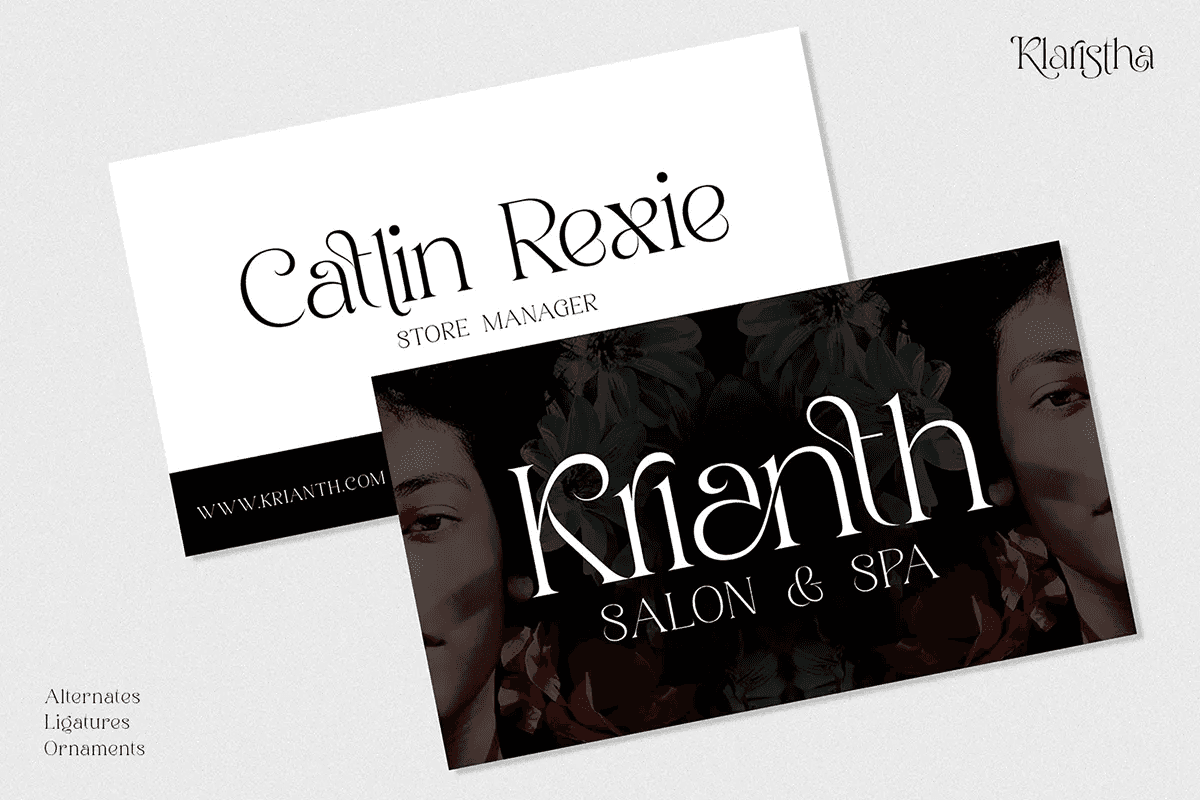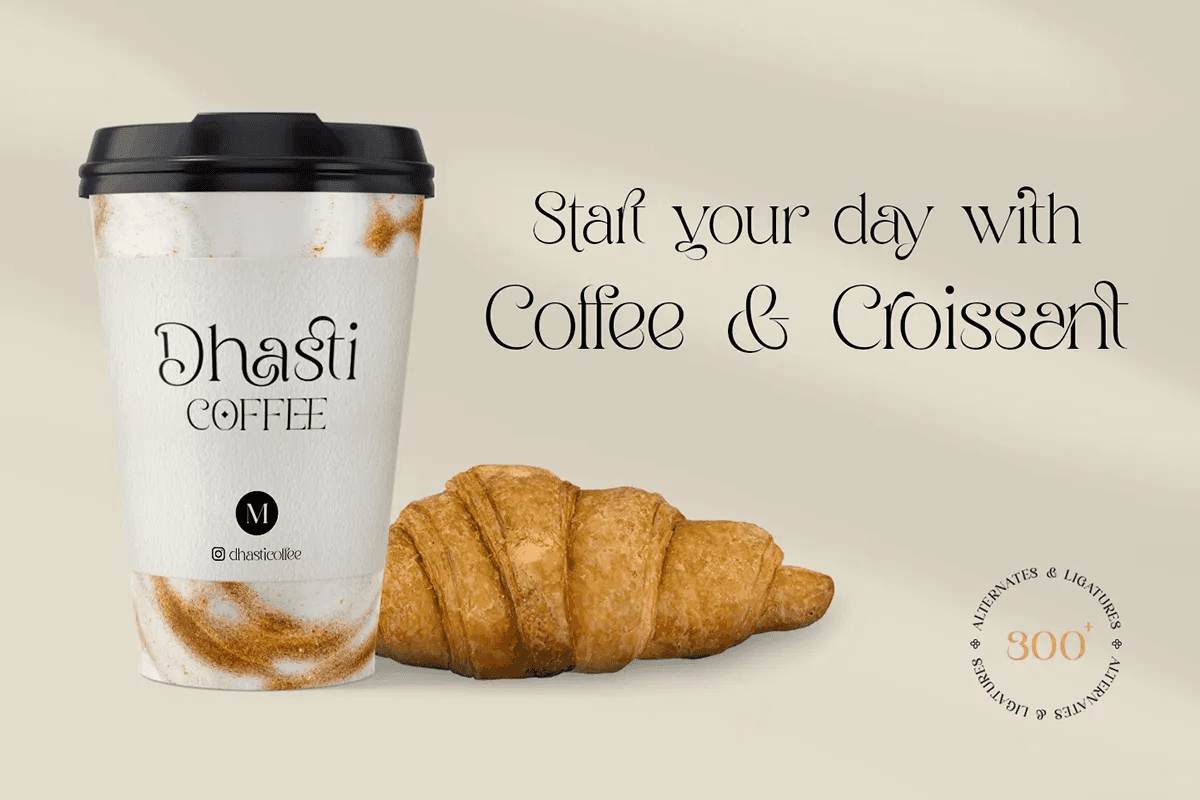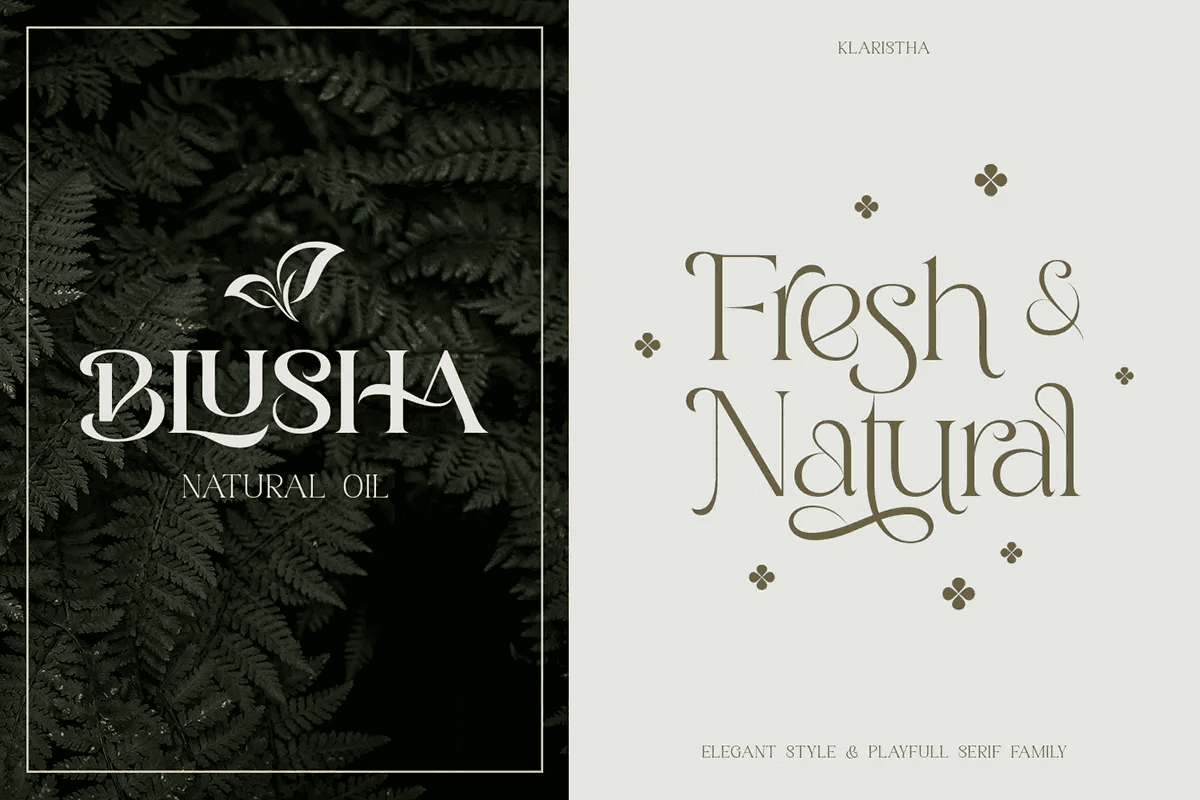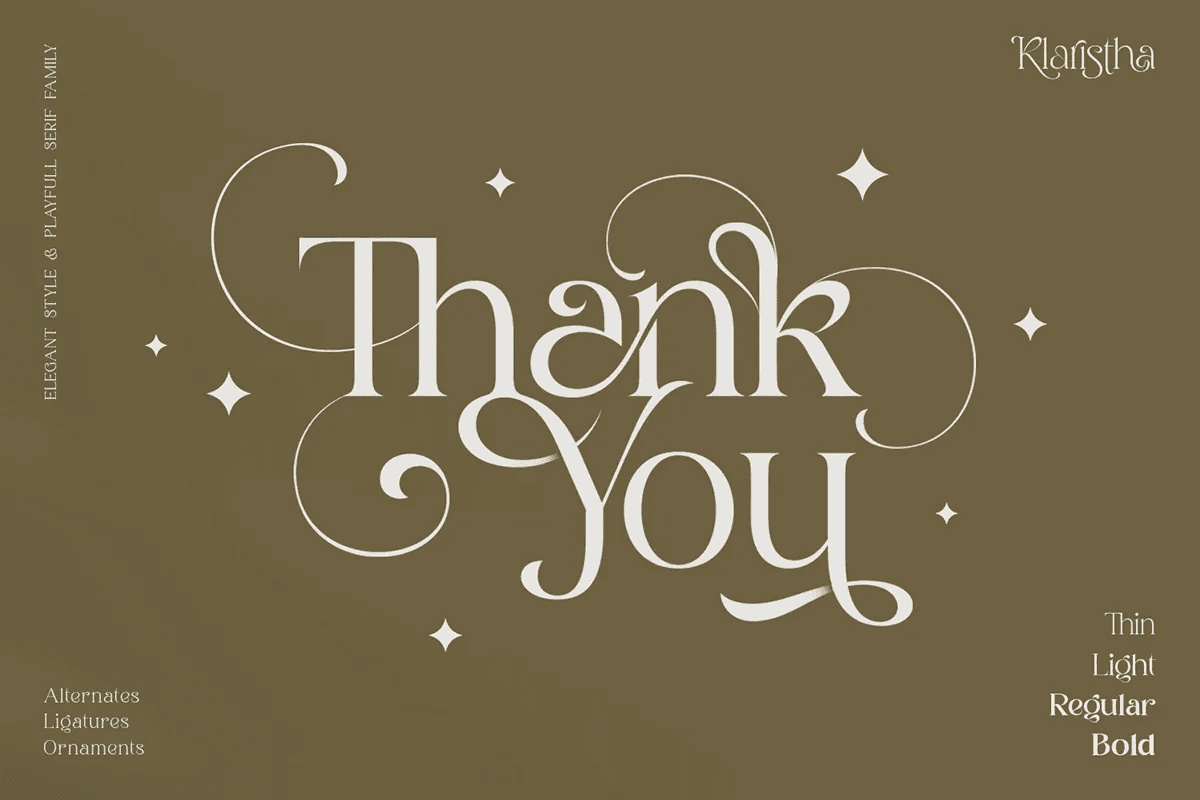
Klaristha Elegant Serif Font
Klaristha Elegant Serif Font is the part of a beautiful serif family by Ekahermawan. The family that consists of 4 weights from thin to bold. It is a versatile font that will fit many type designs projects. It works especially great for logo design, branding, magazines, merchandise, presentation, advertising and so much more!